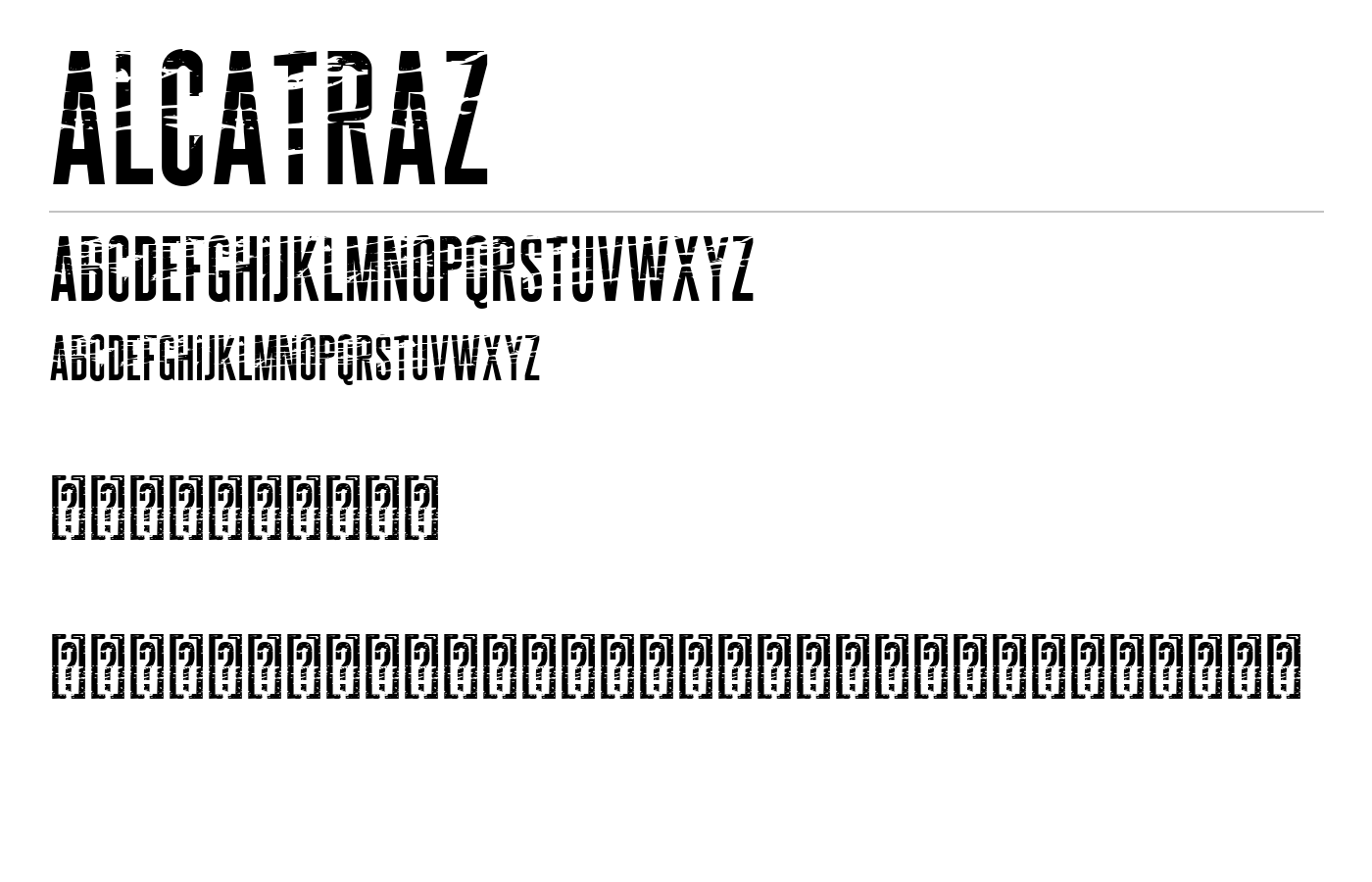
Alcatraz is a bold, condensed sans serif font with a strong, industrial feel highlighted by its distressed, weathered texture. Its tall, narrow letters and rough edges give it a gritty, vintage aesthetic perfect for creating striking headlines, posters, or branding that needs a tough, rugged character. This font works especially well in designs aiming for a rebellious or urban vibe, capturing attention with its bold presence and textured detail.
ALCATRAZ Font
About ALCATRAZ Font